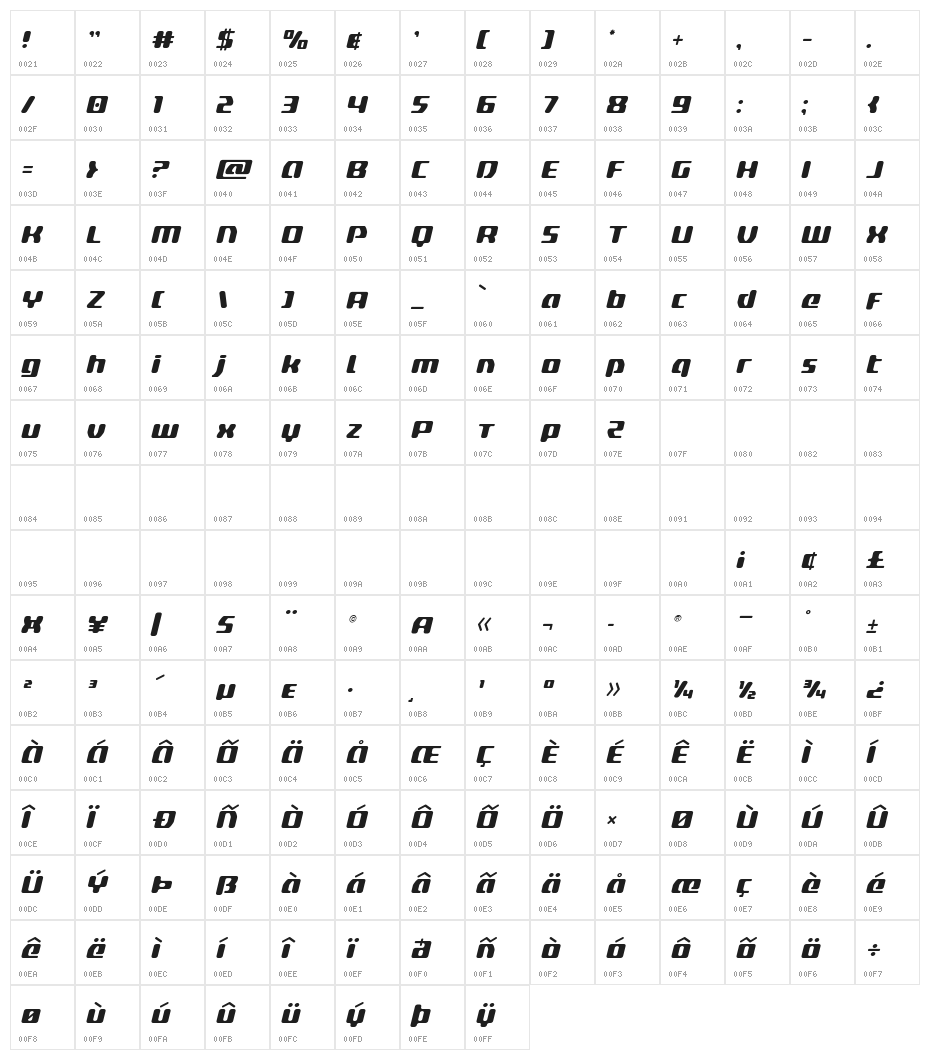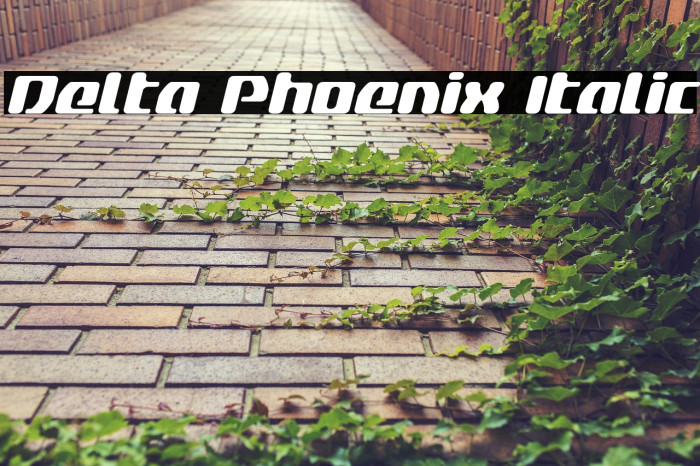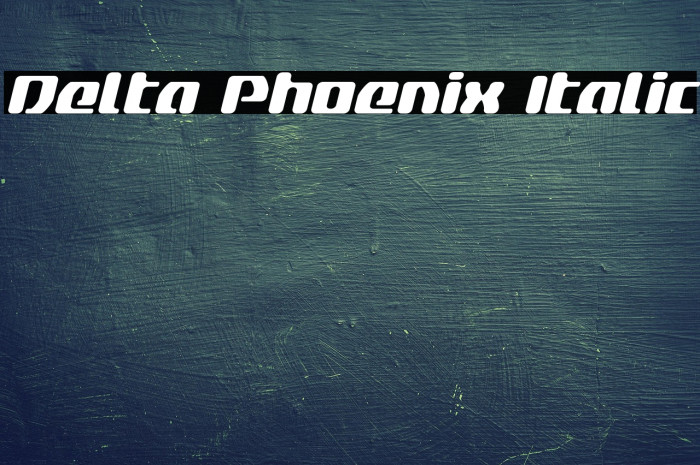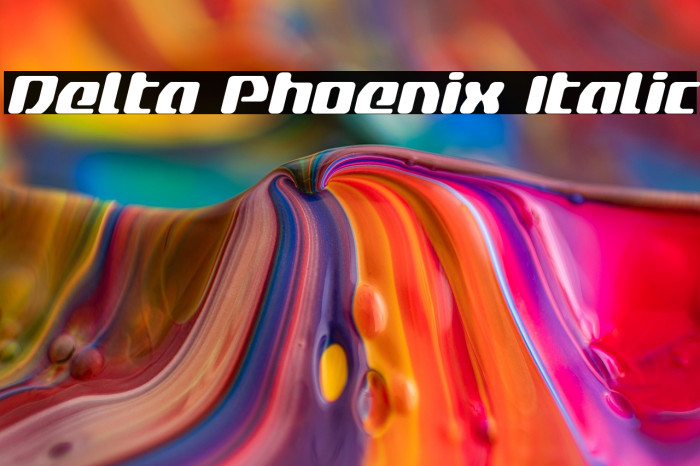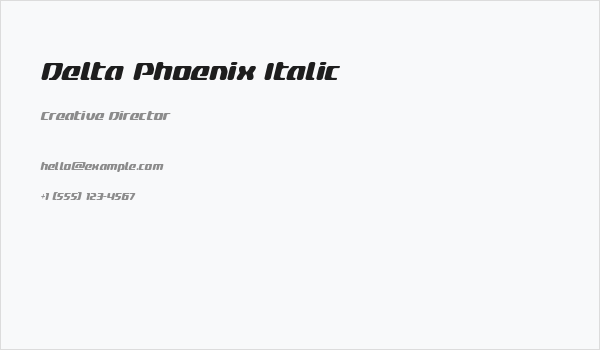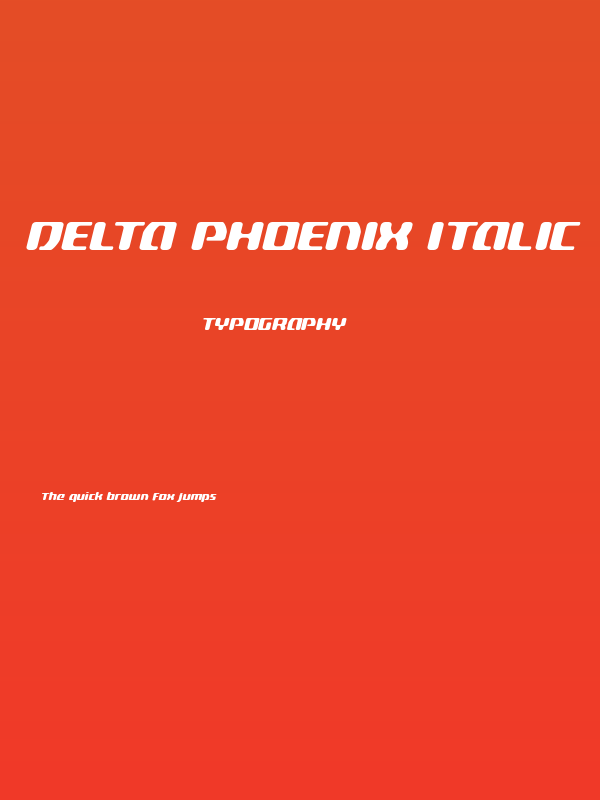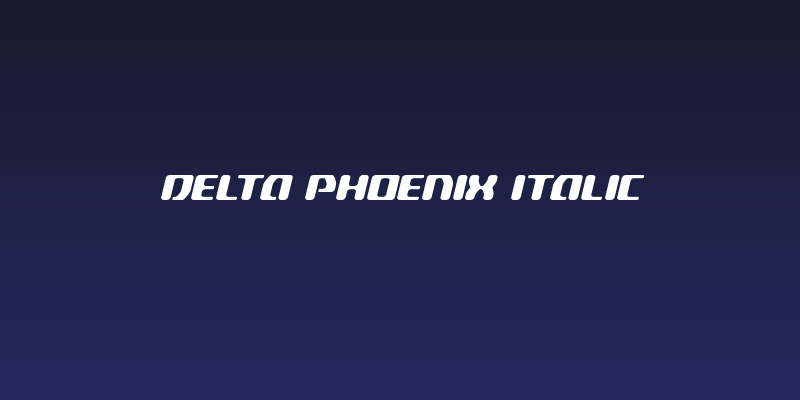
Delta Phoenix Italic Font
Delta Phoenix Italic Description
This font features a bold and dynamic style with a distinct italic slant, giving it a sense of motion and energy. The characters are rounded with smooth curves, creating a modern and sleek appearance. The uppercase and lowercase letters maintain a consistent design, enhancing readability while retaining a unique flair. The numbers and special characters are crafted to match the overall aesthetic, ensuring uniformity across all elements. This font's boldness and italic nature make it stand out, suitable for eye-catching designs.